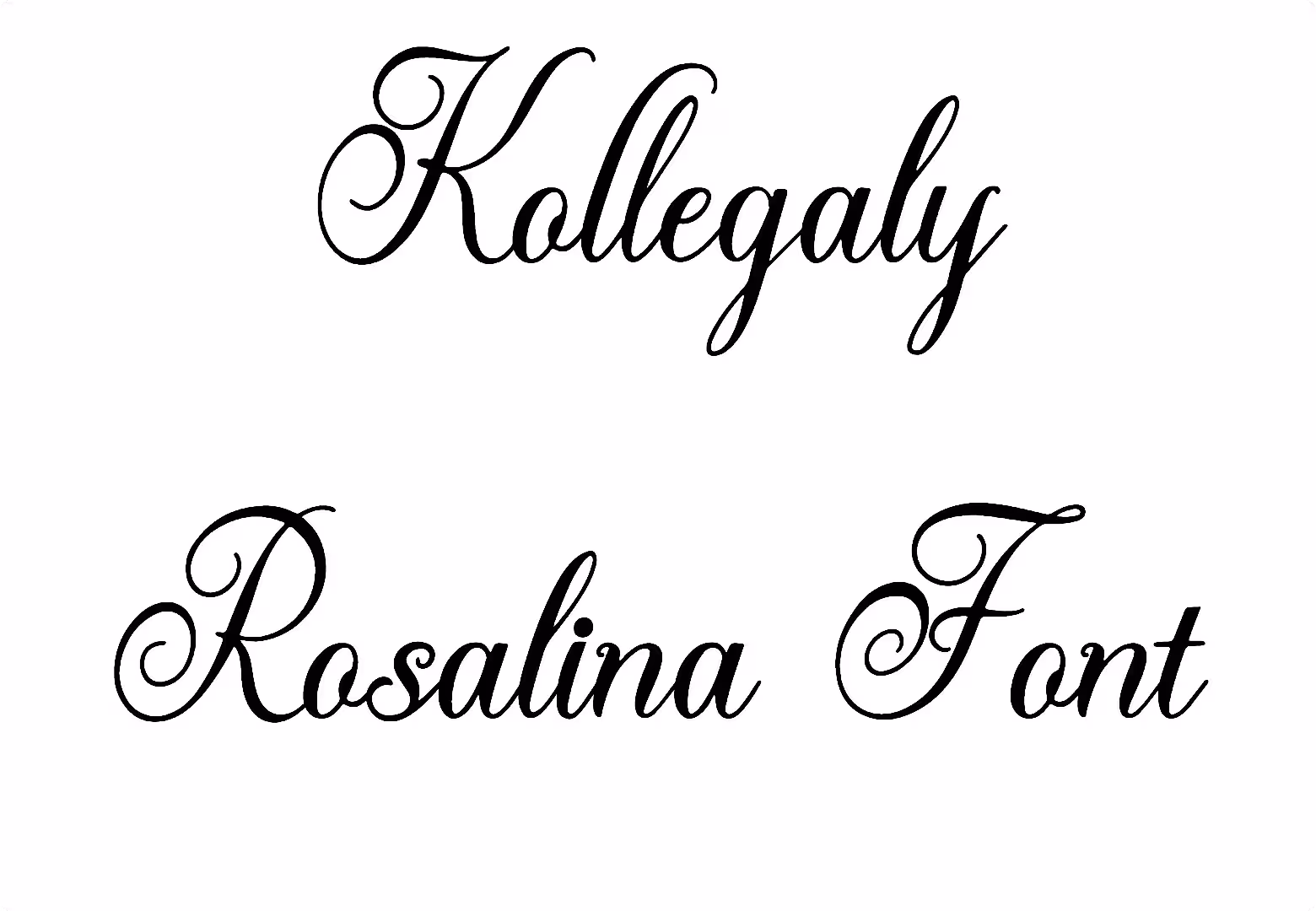
Kollegaly Rosalina
Kollegaly Rosalina is a calligraphy font created by Dede Nugraha and released through Denustudios. Its flowing, pen-made letters give names and short phrases a personal, polished look. You can download it for free and test it with your own words in the preview above.
What You Can Type With Kollegaly Rosalina
With complete upper and lowercase letters and all ten digits, Kollegaly Rosalina is ready for real wording, not just a single headline. Everyday marks like &, !, ? and @ are there too. Thanks to its accented letters, it also works for Spanish, French, German, Portuguese and Italian, not just English.
Where Kollegaly Rosalina Works Best
Designers usually reach for fonts like Kollegaly Rosalina when they're making wedding invitations, certificates and elegant quotes. Script fonts read best in short bursts, so keep it to names, titles and one-line quotes. Skip all caps: script capitals are drawn to start a word, not to fill one.
Does Kollegaly Rosalina support accented letters?
Yes. Kollegaly Rosalina includes the accented letters needed for Spanish, French, German, Portuguese and Italian, so it works for more than just English.